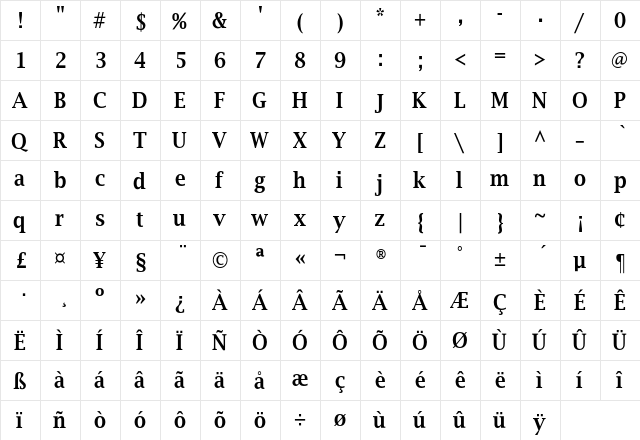
LucidaBrightNarEF DeBol
Design Context for LucidaBrightNarEF Typeface
LucidaBrightNarEF takes a measured approach to typography — its balanced proportions and neutral character make it a reliable workhorse for both digital and print work.
Pro Tip: Pair LucidaBrightNarEF with a font of contrasting weight or personality to build a more expressive typographic hierarchy.